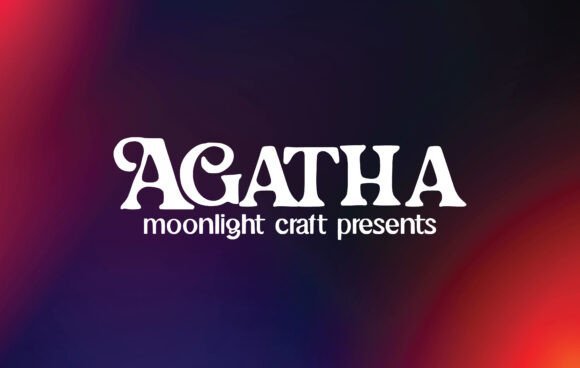
The Perfect Font to Elevate Your Creative Vision
Have you ever sat at your desk, staring at a blank page, waiting for the perfect idea to strike? You’re not alone. Every designer has been there at some point, searching for that elusive spark that will bring their creative vision to life. And then, suddenly, it hits you – the perfect combination of words, images, and typography that makes your project truly shine.
That’s where the Agatha Font comes in. This beautiful and elegant font is the perfect choice for creating eye-catching logos, branding, and quotes that will leave a lasting impression on your audience. With its classic yet modern feel, the Agatha Font has the potential to take your creative ideas to the highest level. For designers, it’s a valuable asset that can elevate their work and make it stand out from the crowd.
Agatha Font Key Features
- Font Family: Agatha is a serif font family designed for body text, offering a clear and readable experience.
- Font Size: Agatha is available in 6 weights, ranging from Light to Black, with each weight offering a unique character and style.
- Resolution: Optimized for use at medium to large font sizes (14-24 points) for optimal readability and aesthetic appeal.
- Unique Characteristics: Agatha features a classic, traditional design with subtle flair and flair-like features that evoke a sense of elegance and sophistication.
- Language Support: Agatha supports a wide range of languages, including Latin, Greek, Cyrillic, and many others, making it a versatile choice for international publications.
Agatha Font Review
As a designer, I was excited to dive into the Agatha Font, a beautiful and elegant serif font that promises to add a touch of sophistication to any project. Here’s my honest review:
- ✨ Elegant and refined design: The Agatha Font has a classic, timeless look that is sure to impress.
- ✨ Wide range of weights and styles: From Light to Bold, the Agatha Font offers a variety of options to suit any design need.
- ✨ OpenType features: The font includes advanced OpenType features, such as ligatures and swashes, to add an extra layer of sophistication.
- ⚠️ Limited language support: While the Agatha Font covers many languages, it may not be comprehensive enough for projects that require extensive language support.
- ⚠️ Not ideal for digital displays: The font’s design may not be optimized for digital displays, potentially leading to readability issues.
Overall, I was impressed with the Agatha Font’s elegance and versatility. While it has some limitations, it is a solid choice for designers looking to add a touch of sophistication to their projects. However, it’s essential to carefully consider the font’s limitations before making a final decision.
Practical Application Guide for Agatha Font
Tips for Getting the Most Out of Agatha Font
For best results, use Agatha Font for headings and titles. It’s also a great choice for body text in creative projects. Experiment with different font sizes and combinations to find the perfect balance for your design.
Agatha Font is ideal for:
- Magazine and newspaper layouts.
- Book covers and interior design.
- Branding and advertising materials.
- Infographics and data visualizations.
Alternatives to Agatha Font for Designers
Playfair Display is a luxurious and elegant serif font that is perfect for creating a high-end and sophisticated look. It features intricate details and flourishes, making it ideal for use in headings, titles, and other display text. When to use: Luxury branding, high-end magazines, and special occasions.
Comparison to Agatha Font: While Agatha Font has a vintage feel, Playfair Display is more luxurious and ornate, making it a great choice for designers who want to add a touch of sophistication to their designs.
Great Vibes is a beautiful and elegant script font that is perfect for creating a warm and inviting atmosphere. It features a flowing and cursive design, making it ideal for use in headings, titles, and other display text. When to use: Wedding invitations, romantic branding, and special occasions.